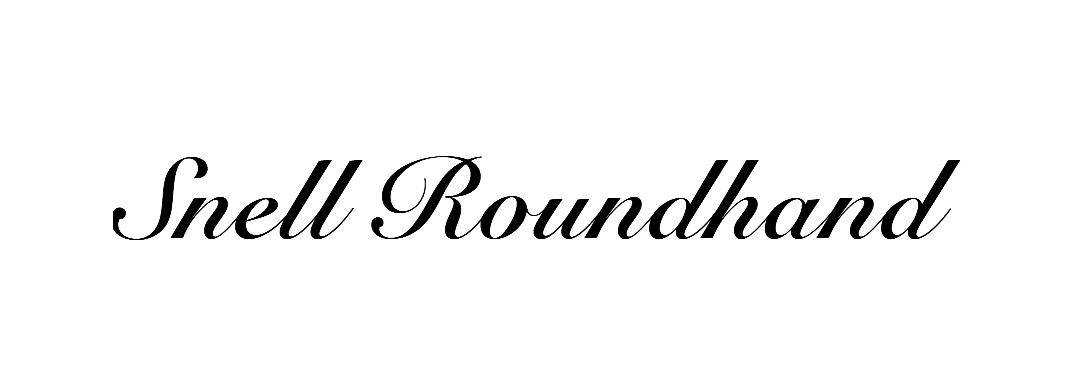
Snell Roundhand Font
Snell Roundhand is a calligraphy font. Its flowing, pen-made letters give names and short phrases a personal, polished look. You get two styles in one free ZIP, and the preview above lets you test each one before you download.
What You Can Type With Snell Roundhand
With complete upper and lowercase letters and all ten digits, Snell Roundhand is ready for real wording, not just a single headline. Everyday marks like &, !, ? and @ are there too. Thanks to its accented letters, it also works for Spanish, French, German, Portuguese and Italian, not just English.
Where Snell Roundhand Works Best
Snell Roundhand is a natural fit for wedding invitations, certificates and elegant quotes. Script fonts read best in short bursts, so keep it to names, titles and one-line quotes. Skip all caps: script capitals are drawn to start a word, not to fill one. Because the family has more than one style, you can mix them in a single design for headings, subheadings and highlights.
Does Snell Roundhand support accented letters?
Yes. Snell Roundhand includes the accented letters needed for Spanish, French, German, Portuguese and Italian, so it works for more than just English.